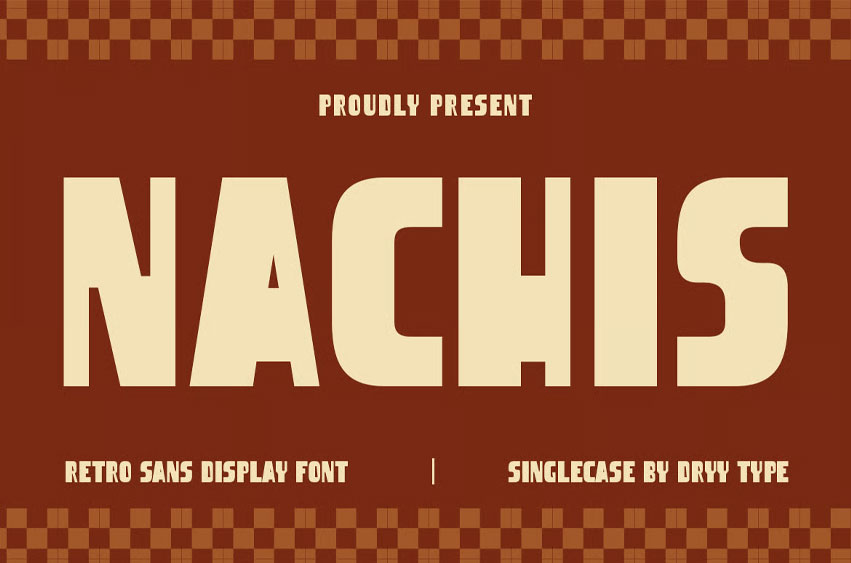
Nachis Font is a Retro display font. This font I created is meaningful & very versatile, it goes well with various designs, elevating them to the highest level.
• Features: Single-case, Alternate, Numerical, & Multilingual Support